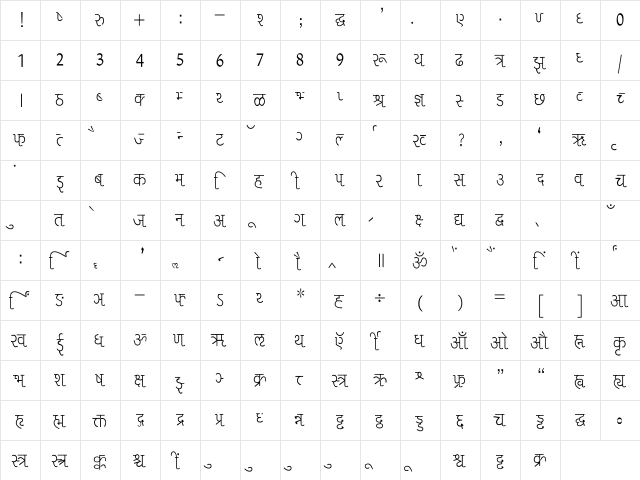
Liza Thin Regular
Design Context for Liza Thin Typeface
Liza Thin offers clean, dependable letterforms without strong stylistic allegiance, making it a practical choice for designers who need flexibility. Its slender proportions lend an understated elegance to any composition.